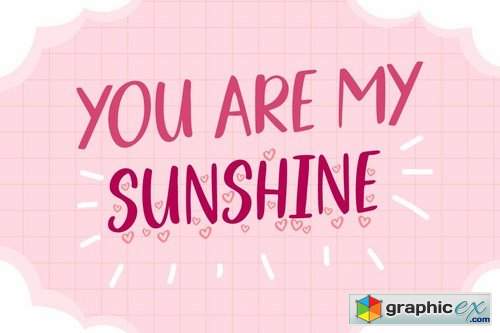
Delight Crush - Display Font
Delight Crush is lovely all caps display font, including two style regular and display that perfect for any combination for your design. Delight Crush perfectly macth for desgign with valentine theme, any product like book cover, t-shirt, branding, promotion, social media post, quotes, wedding, photography and more.